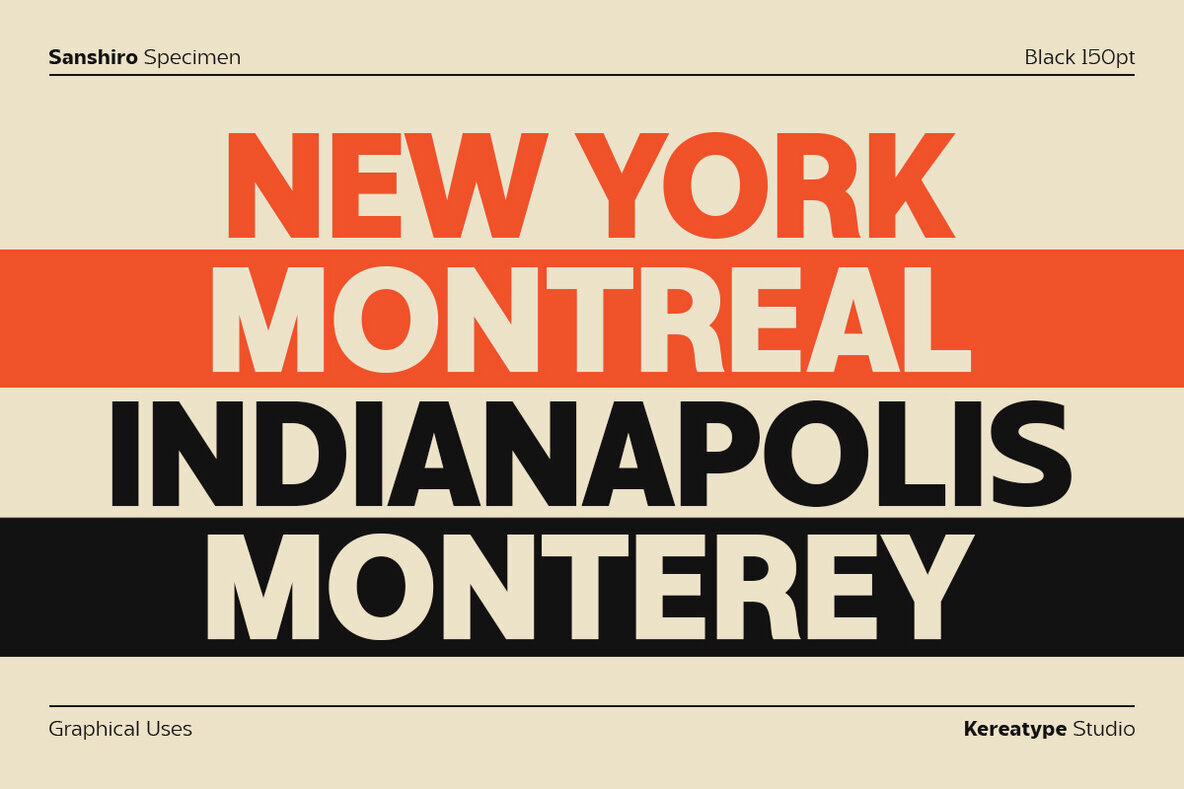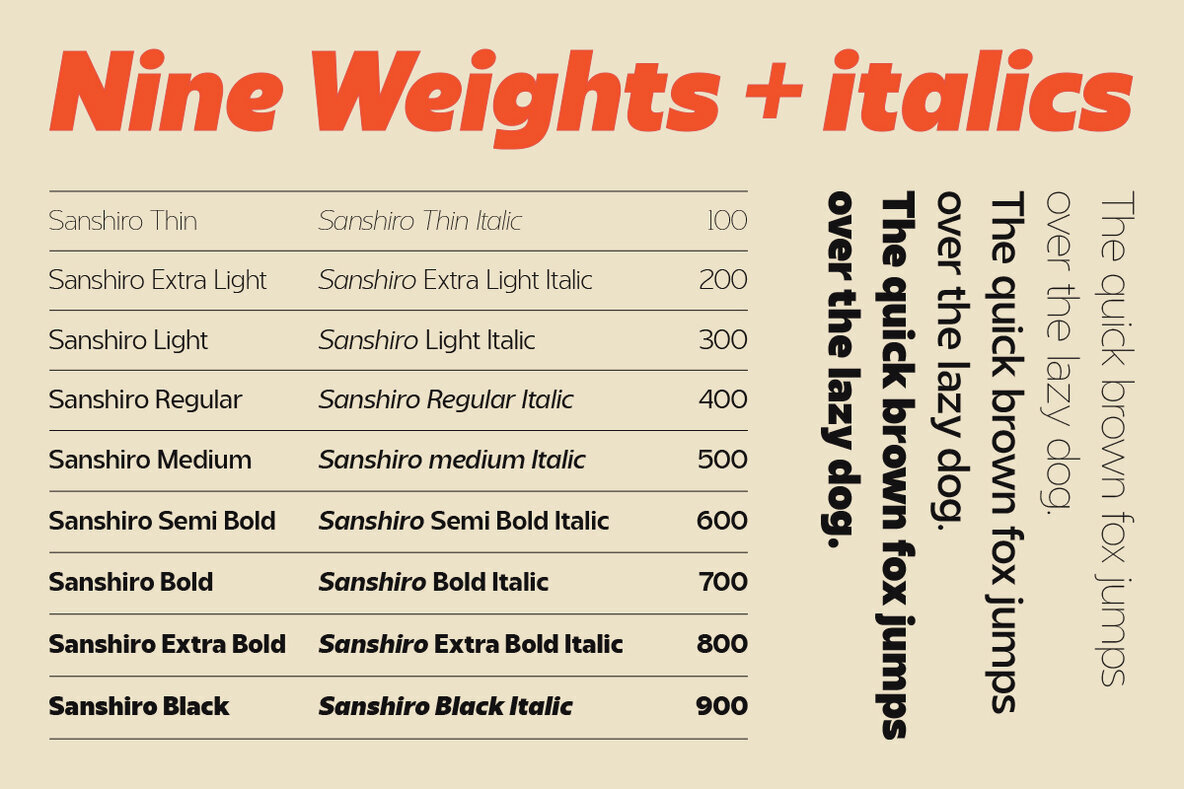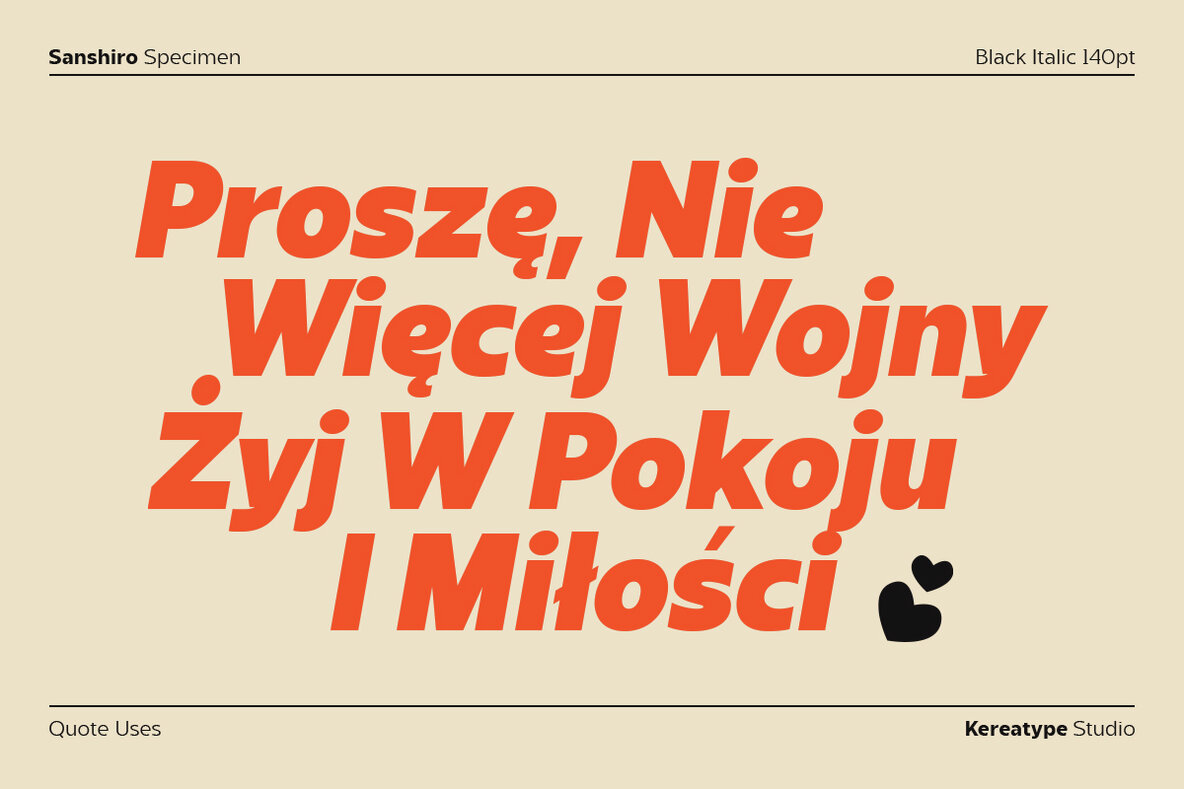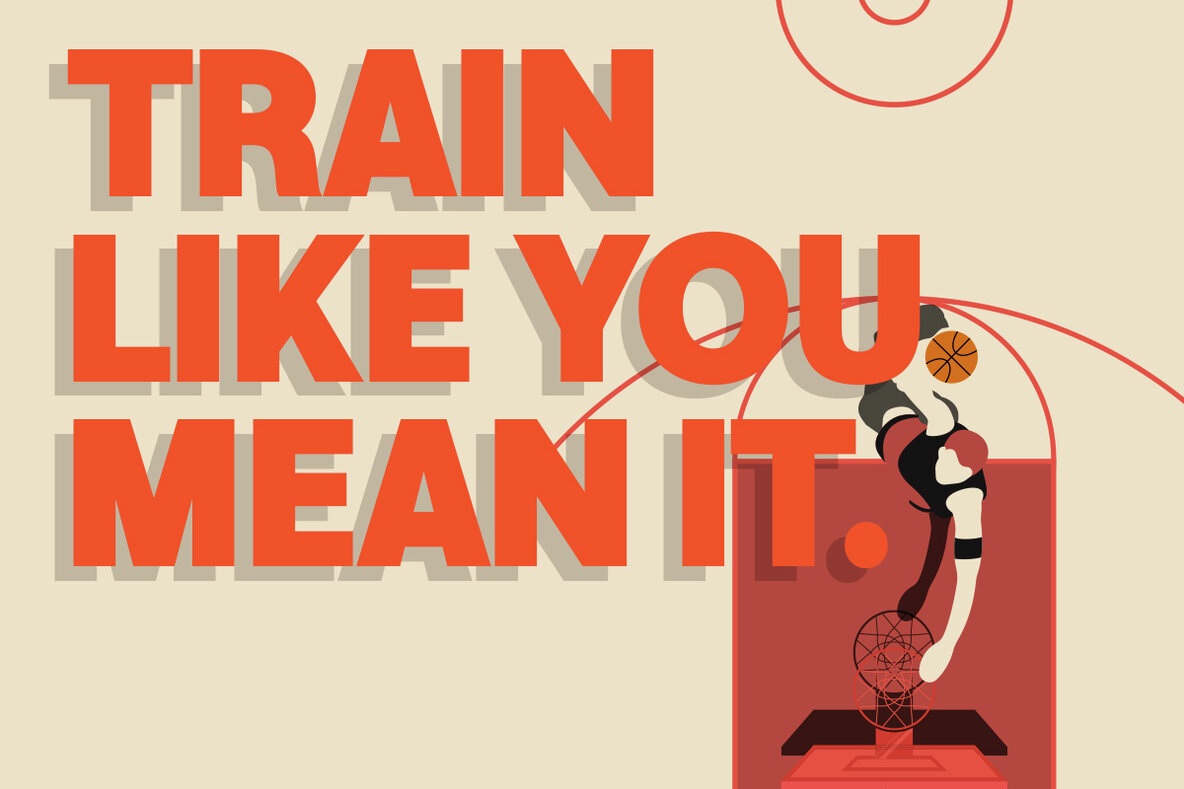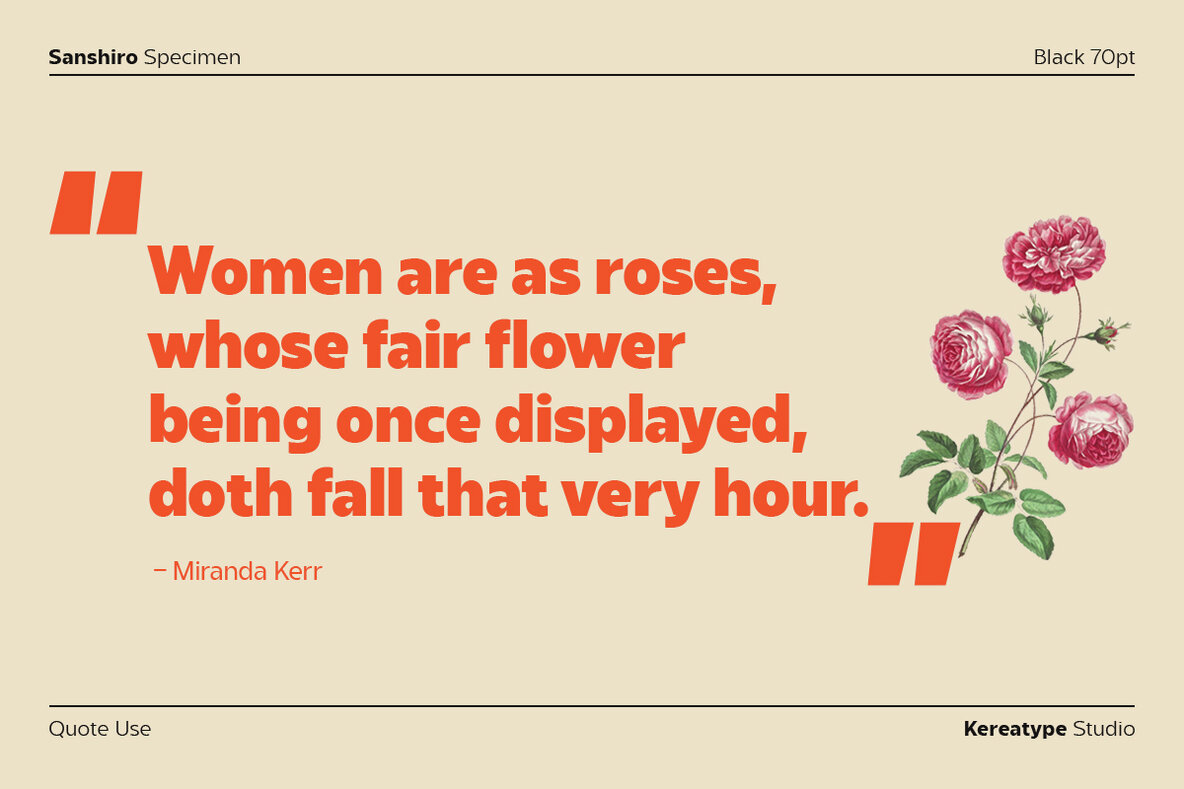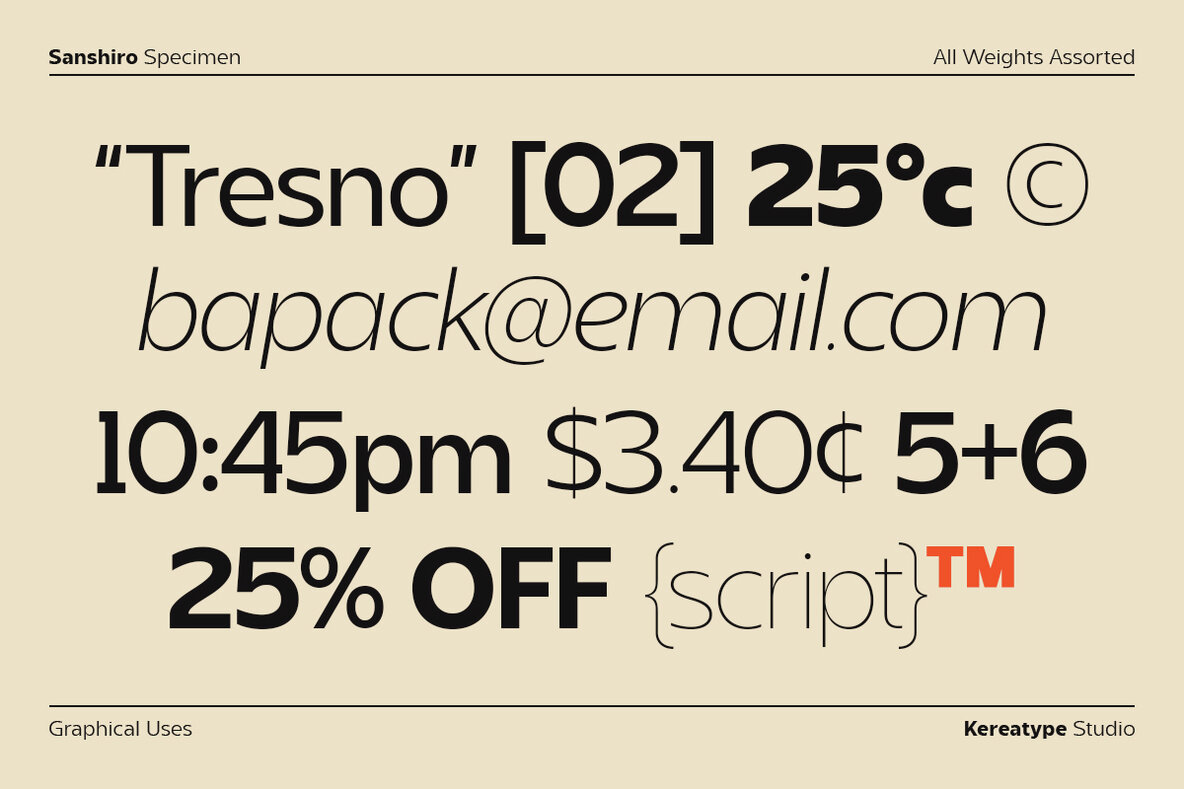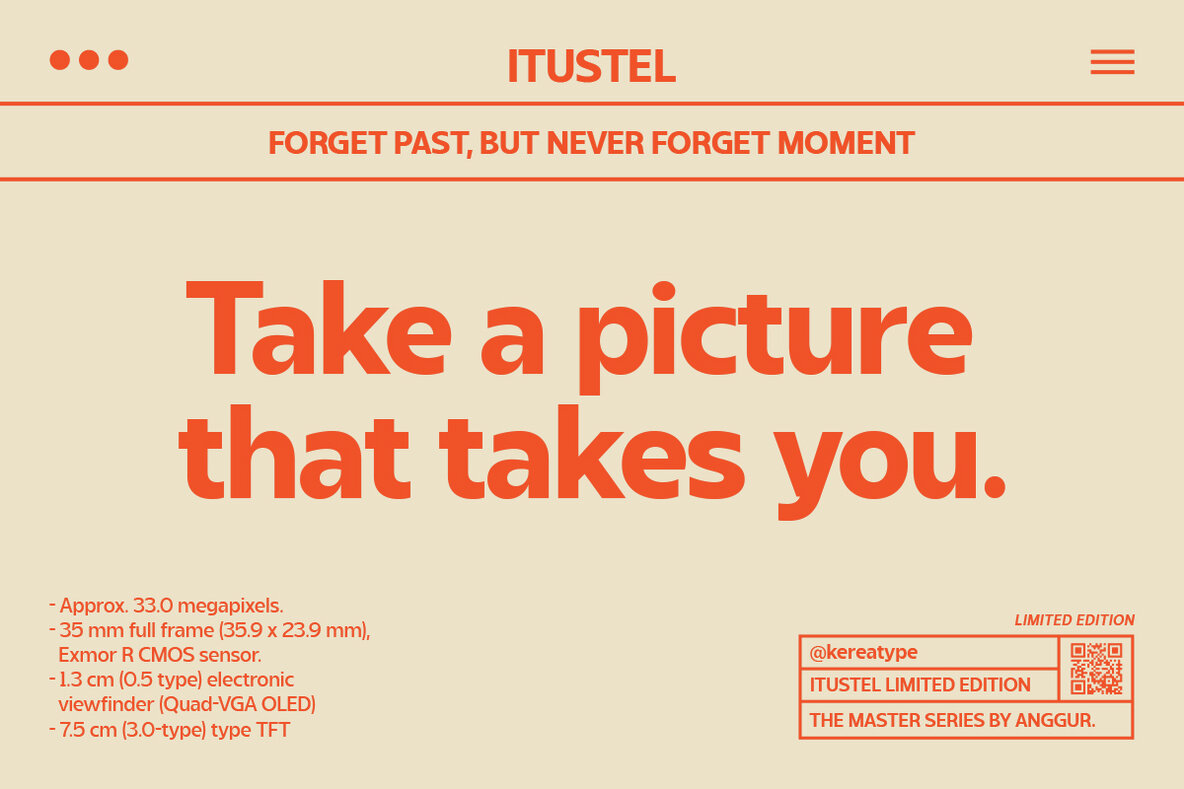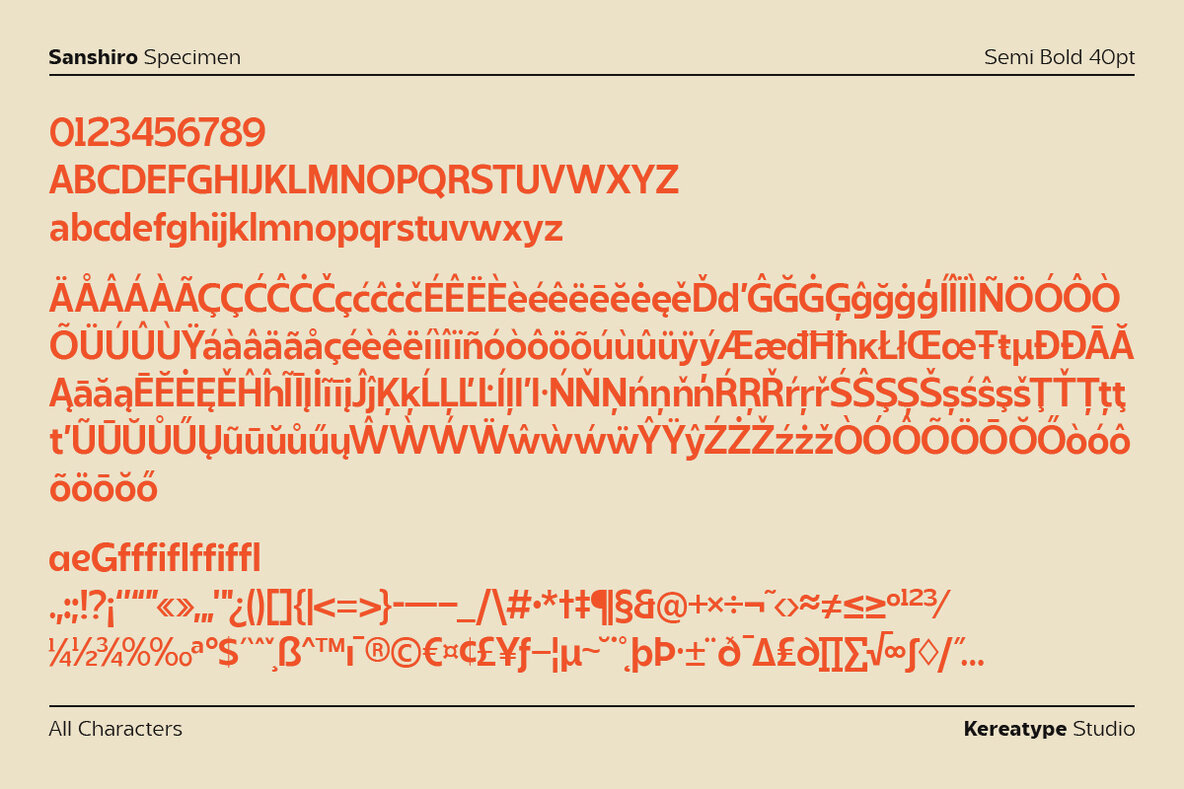
Sanshiro Font
The Sanshiro font family has a geometric style with 9 weights and matching italics. The characters are optimized for text, but their heavy weight can be used in any display media to support your design needs!